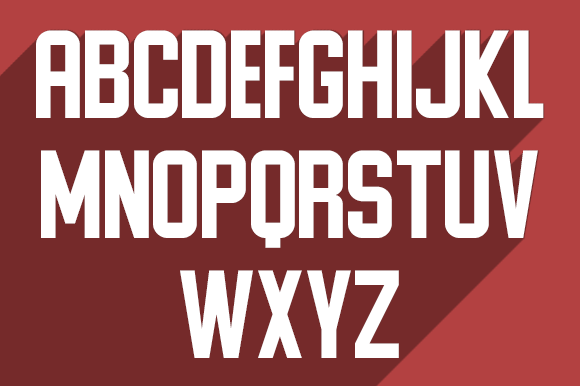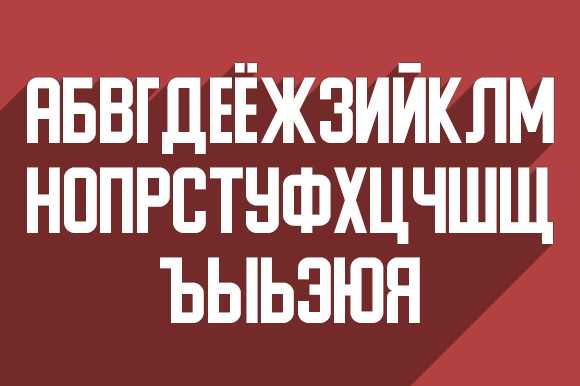
Introduction to Ponter Font
Remember the moment when you’re working on a creative project and you just can’t find the right font to bring your vision to life? The frustration is real, but what if I told you that there’s a solution that’s simple, yet elegant? Enter the Ponter Font, a neutral display font that’s perfect for branding, packaging design, and even sporting events. Its beauty lies in its simplicity, making it a valuable resource for designers who want to create a lasting impression.
With its high-quality design and transparent background, the Ponter Font is an excellent choice for any creative project. Whether you’re working on a design project or simply looking for a free download to add some flair to your work, this font is sure to deliver. And the best part? It’s available for free, making it an accessible design resource for designers of all levels.
Ponter Font
- High-quality font with a transparent background, ideal for creative projects that require a clean and minimalist design.
- Features a unique, modern design with a mix of geometric and sans-serif elements, perfect for branding and editorial projects.
Honest Review: Ponter Font
I recently had the chance to work with the Ponter Font, and I must say, it’s been a game-changer for my design projects. As a designer, I’m always on the lookout for high-quality design resources that can elevate my work and make it stand out.
One of the things that I love about the Ponter Font is its versatility. It’s perfect for a wide range of creative projects, from graphic design to digital art. The font is incredibly easy to use, and it works well with transparent backgrounds, which is a must-have for me.
- ✨ Easy to use and customize
- ✨ Works well with transparent backgrounds
That being said, there are a few limitations to the Ponter Font. It’s not as extensive as some other font libraries, and it may not be suitable for projects that require a wide range of font styles.
Overall, I’m really impressed with the Ponter Font. It’s a great design resource that’s perfect for designers who want to add a touch of elegance and sophistication to their work. With its high-quality design and versatility, it’s definitely worth checking out.
Ponter Font
Ponter Font is a versatile and high-quality design resource perfect for any creative project. With its unique style and transparent background, it can add a professional touch to your work.
Tips for Getting the Most Out of Ponter Font
For optimal results, use Ponter Font on a high-quality image with a transparent background. This will allow you to customize the text and design to your liking.
Ponter Font is ideal for:
- Creating professional-looking graphics and designs
- Adding a unique touch to presentations and reports
- Designing eye-catching social media graphics and ads
Alternatives to Ponter Font
Montserrat is a popular sans-serif font ideal for creative projects that require a modern and sleek look. It’s perfect for designing a logo or creating a high-quality design resource with a transparent background. Montserrat is available for free download and is widely used in digital design. Compared to Ponter Font, Montserrat has a more geometric and urban feel.
Great Vibes is a beautiful script font suitable for creative projects that need a touch of elegance and sophistication. It’s perfect for designing invitations, wedding cards, or creating a design resource with a high-quality feel. Great Vibes is available for free download and is widely used in digital design. Compared to Ponter Font, Great Vibes has a more cursive and handwritten feel.
Open Sans is a clean and modern sans-serif font ideal for creative projects that require a simple and readable design. It’s perfect for designing a website, creating a design resource with a transparent background, or writing a blog post. Open Sans is available for free download and is widely used in digital design. Compared to Ponter Font, Open Sans has a more straightforward and minimalistic feel.